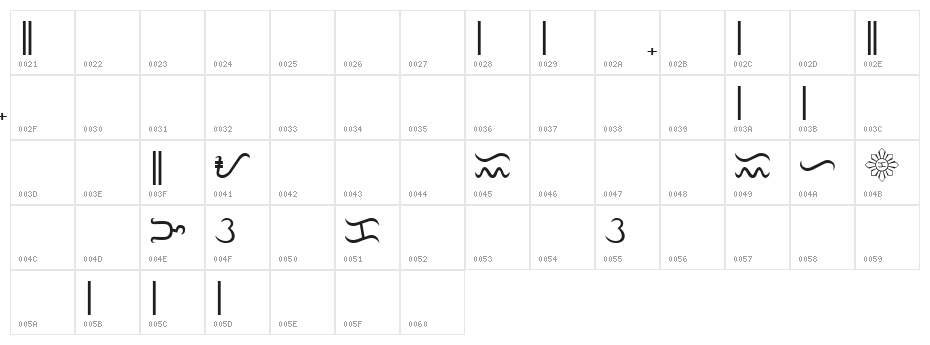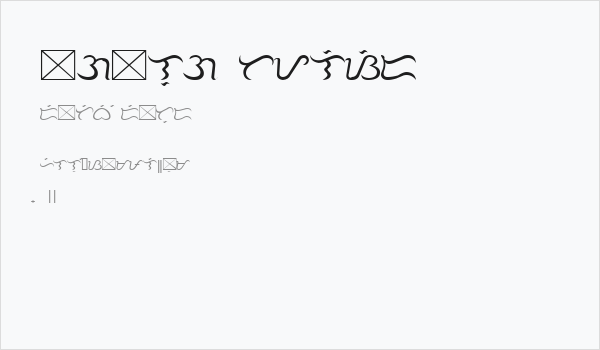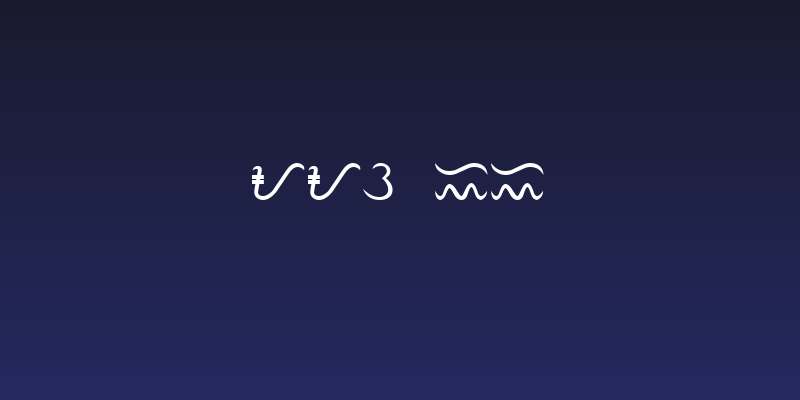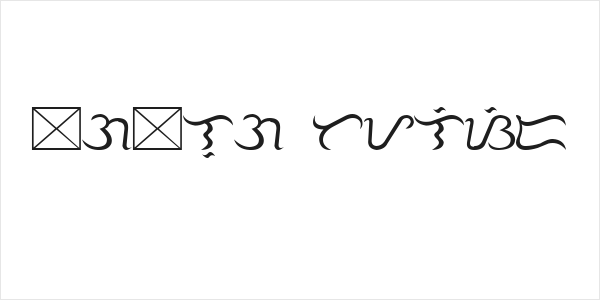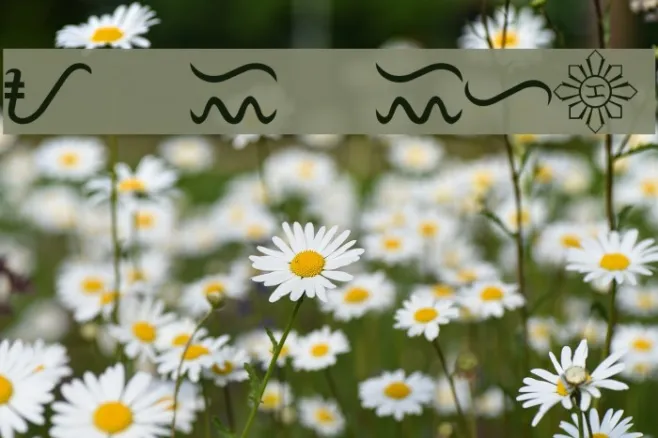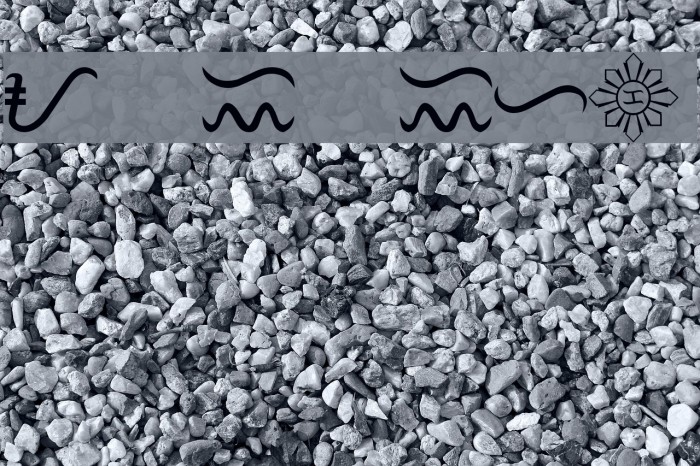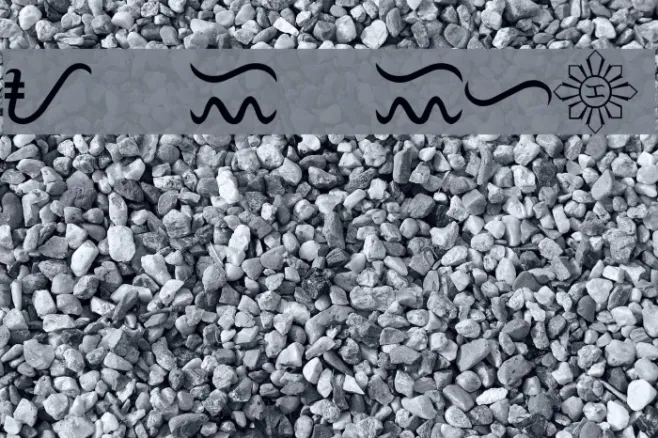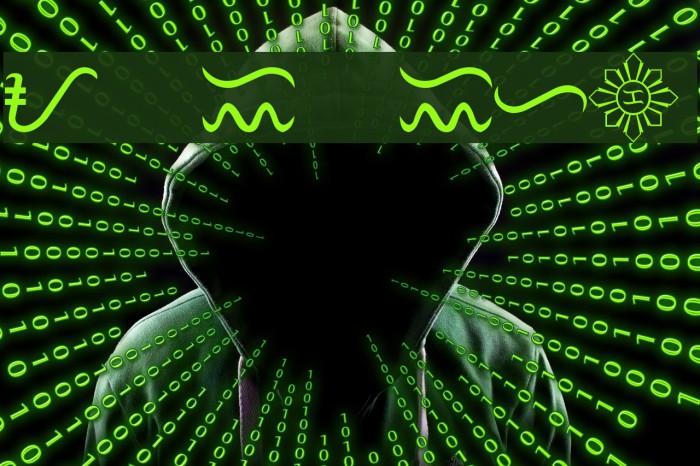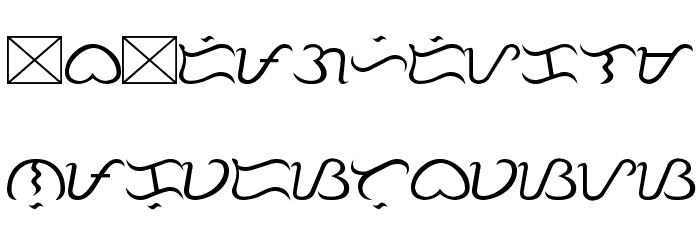
Tagalog Stylized Font
Tagalog Stylized Description
This stylized script is inspired by traditional Tagalog script, featuring elegant and flowing lines that mimic the curves and loops of ancient writing systems. The characters are artistically rendered with a modern twist, incorporating both historical and contemporary elements. The design includes intricate details that add a decorative flair, making it visually captivating. The font's unique style is suitable for cultural and artistic projects, offering a blend of heritage and creativity. Its ornamental nature makes it ideal for special occasions and themed designs.
| Use Case | Logos, Invitations, Cultural Projects |
| Proposed Projects | Ideal for cultural projects, artistic designs, invitations, and themed events that require a touch of heritage and elegance. |